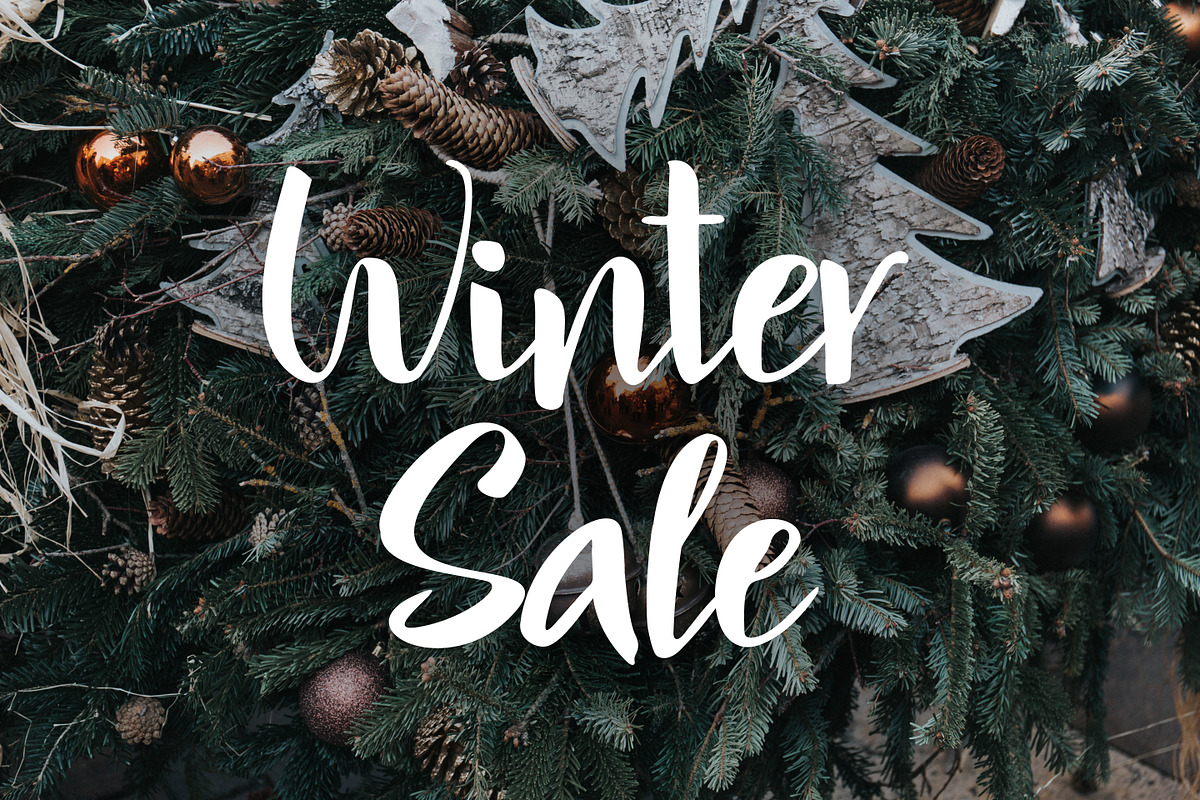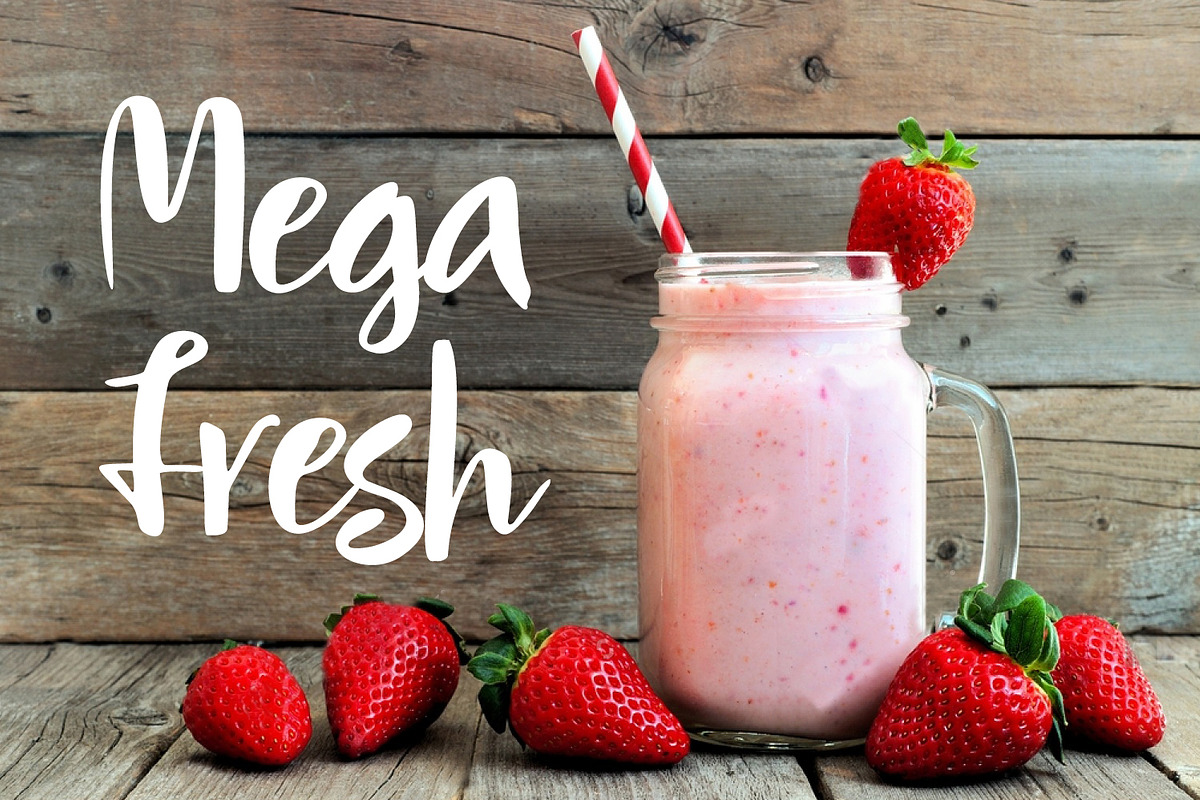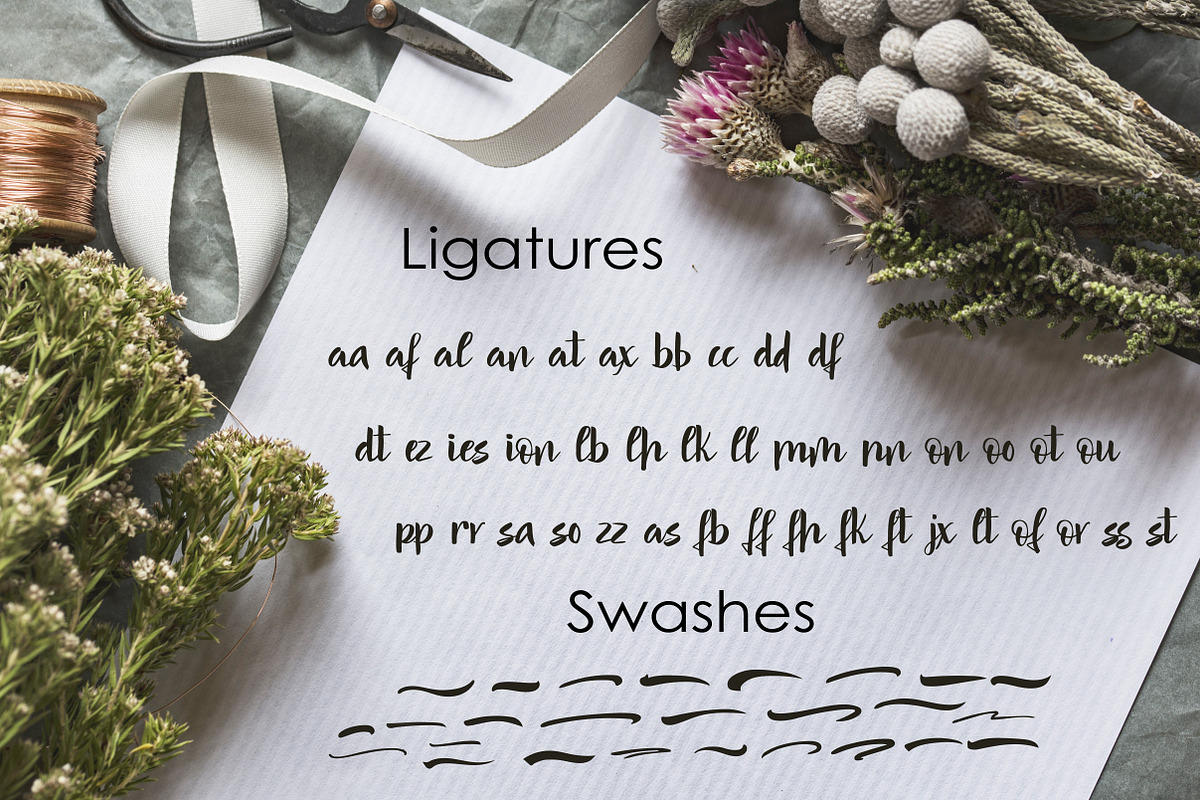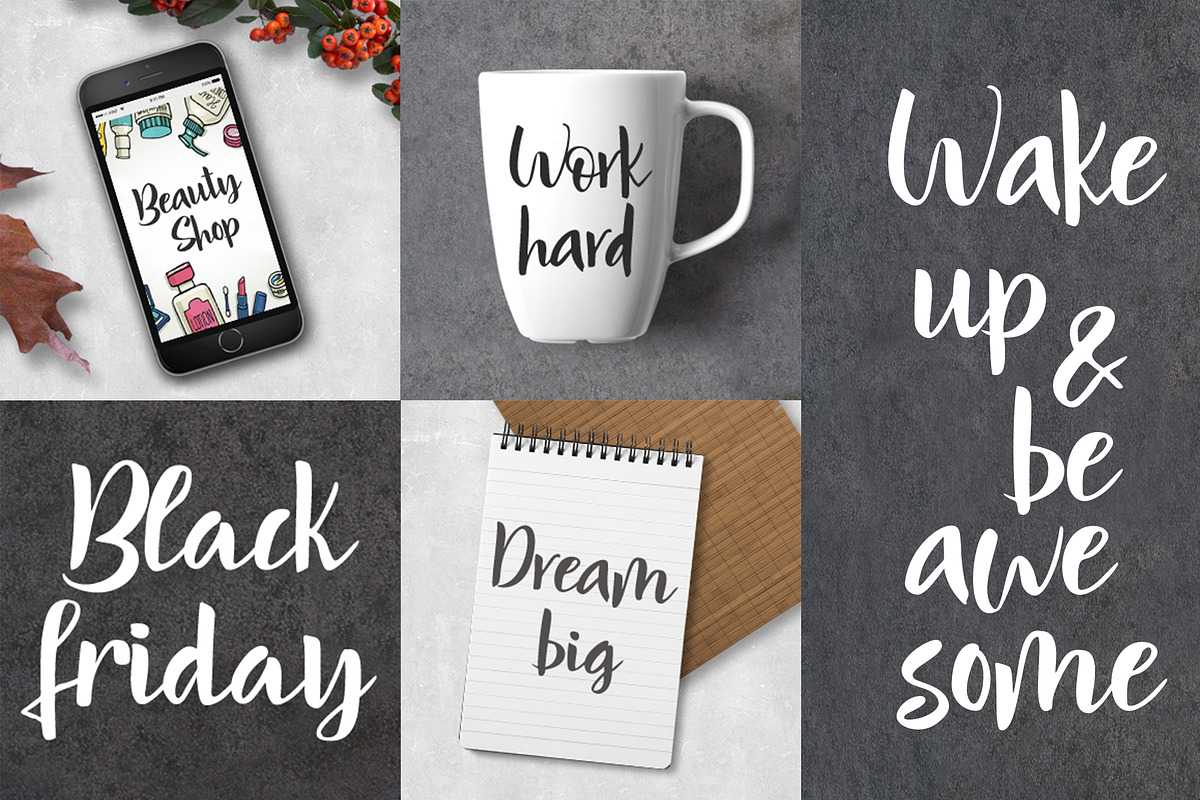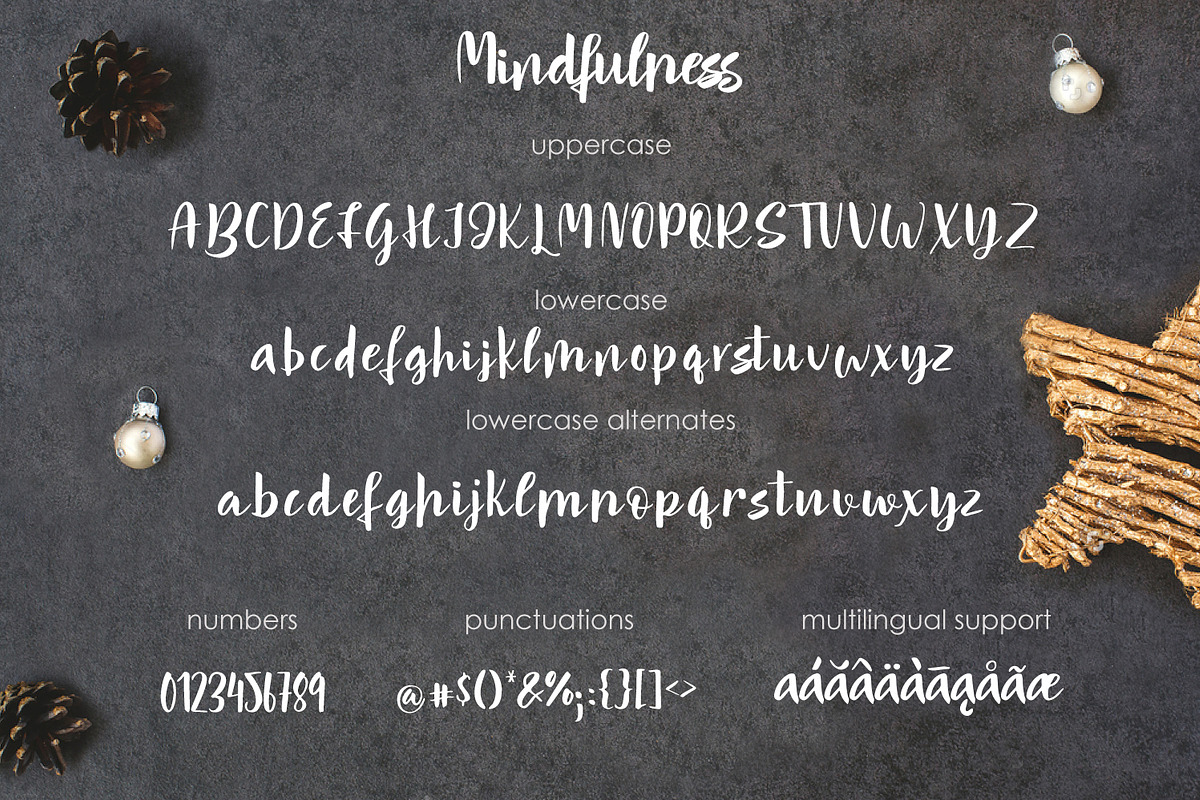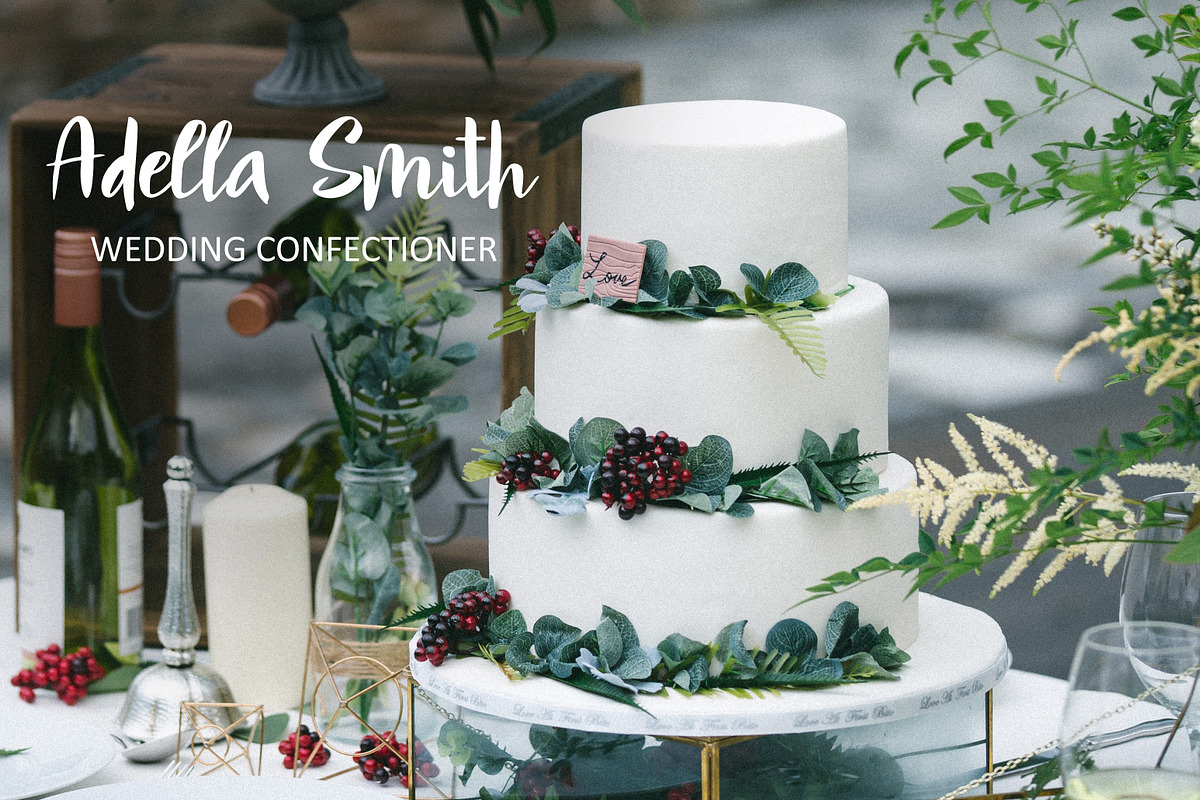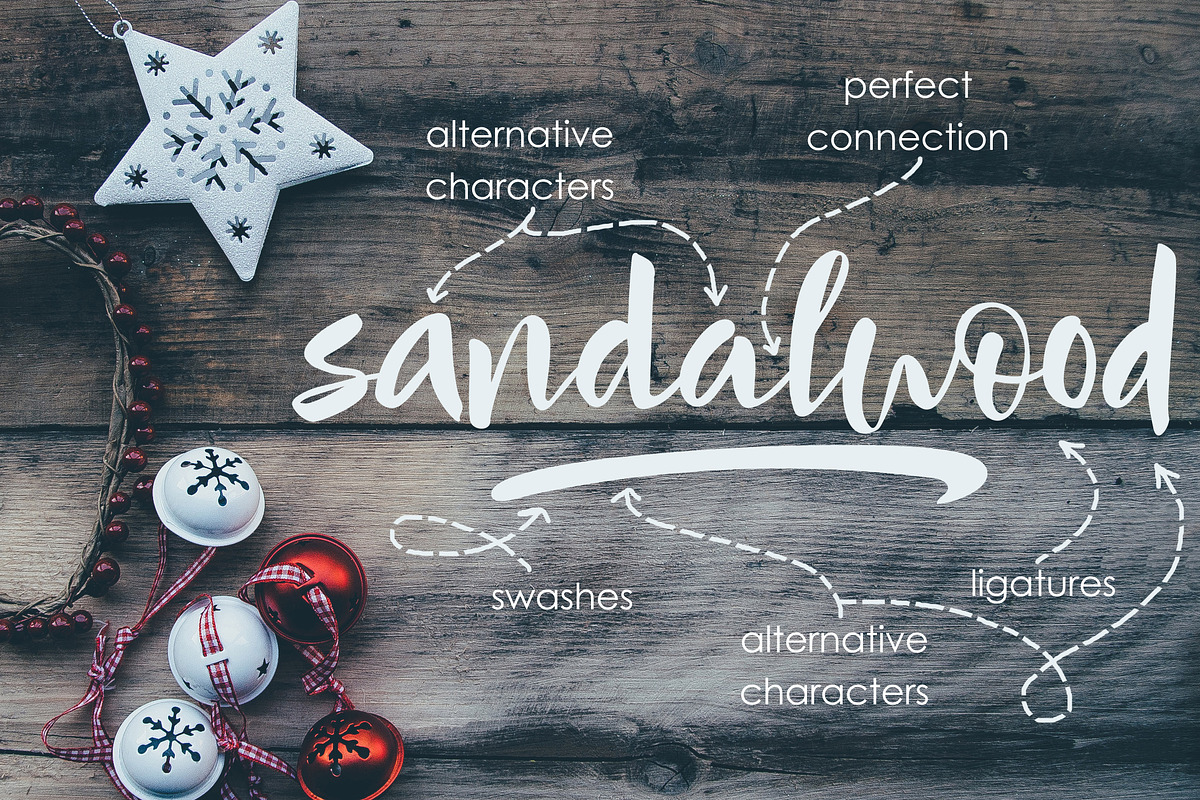
Mindfulness - handwritten font
I present to you an Mindfulness is a modern brush font.
This font has a large number of ligatures and an alternative set of symbols for lowercase, and some contextual alternatives (initial and final glyphs). These characters are accessible via software with a glyphs panel. In order to use OpenType features, you would need to have a software that supports them such as Adobe Photoshop, Adobe Illustrator, Adobe InDesign, Corel Draw X versions.
Fonts include multilingual support.
Each letter has been attentively written, with gentle curves to produce a font thats completely distinctive and original. Simply Mindfulness makes custom lettering a dream thanks to all the little extra decorative options you can include for a pretty and unique customisation.
You can use this font for watermark on photography, signature or signature logo design, quotes, album cover, business card, and many other design project. Perfect for greetings, branding, prints, invitations, and crafting, print, t-shirt design, to personalised logos, handwritten quotes and so much more!